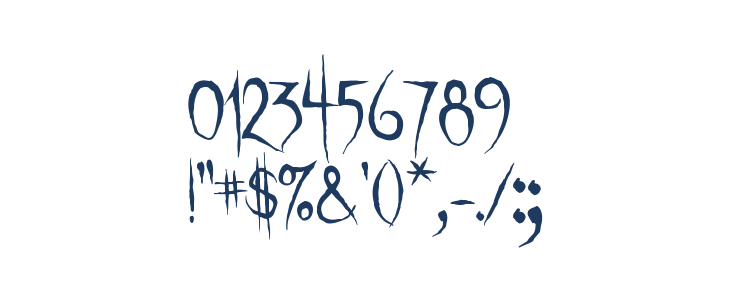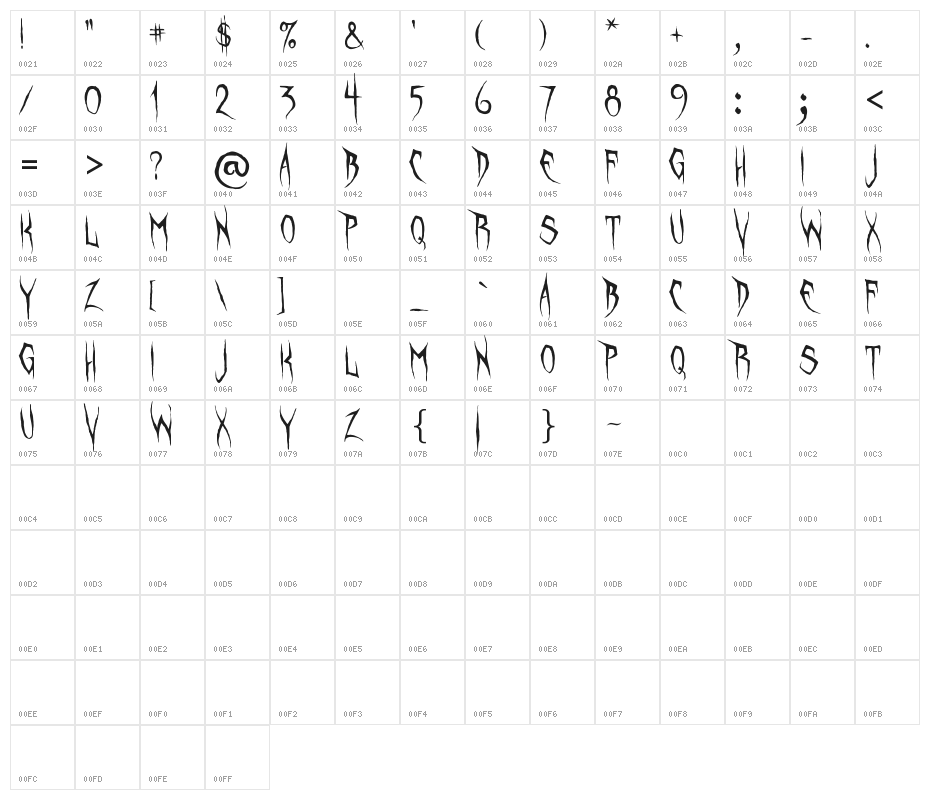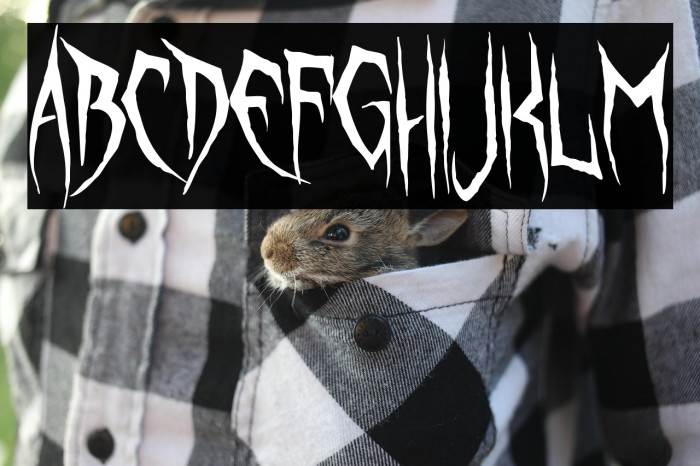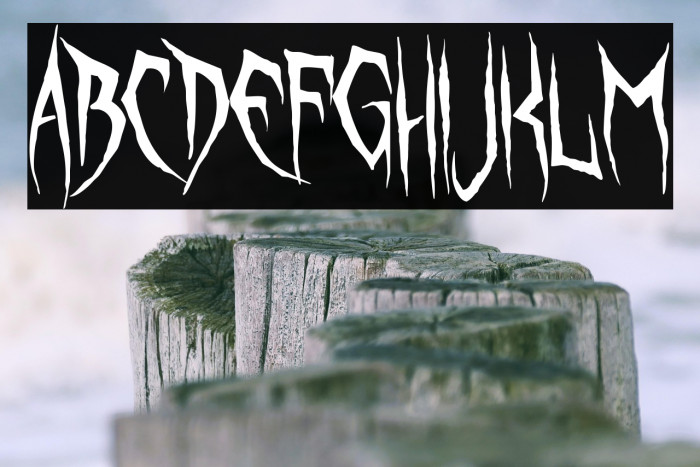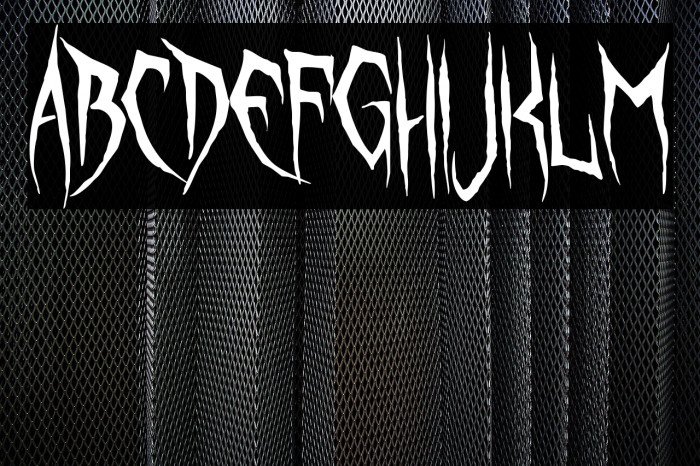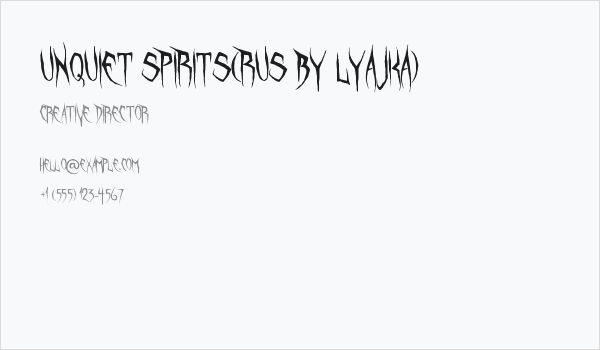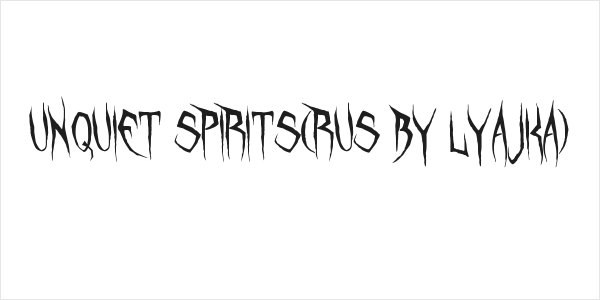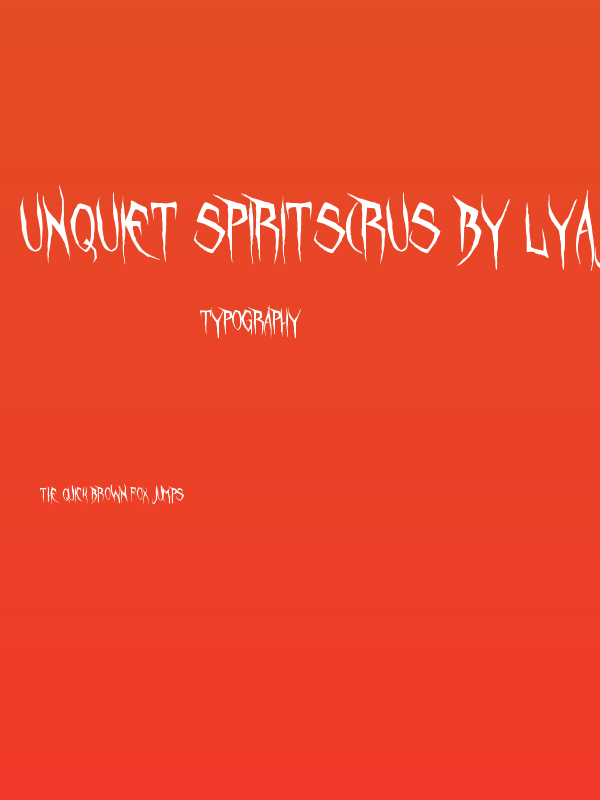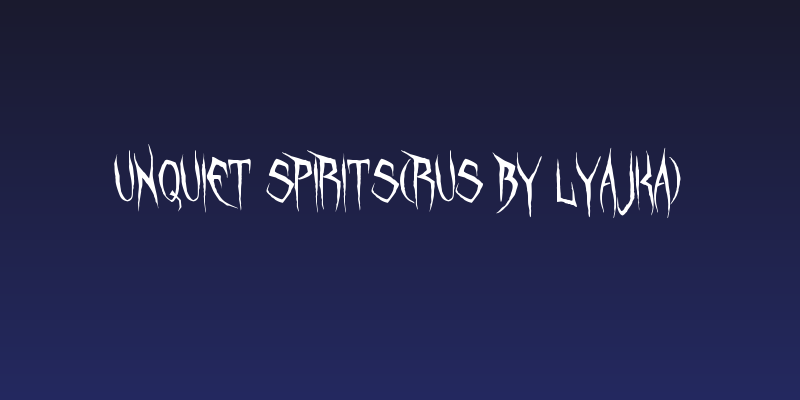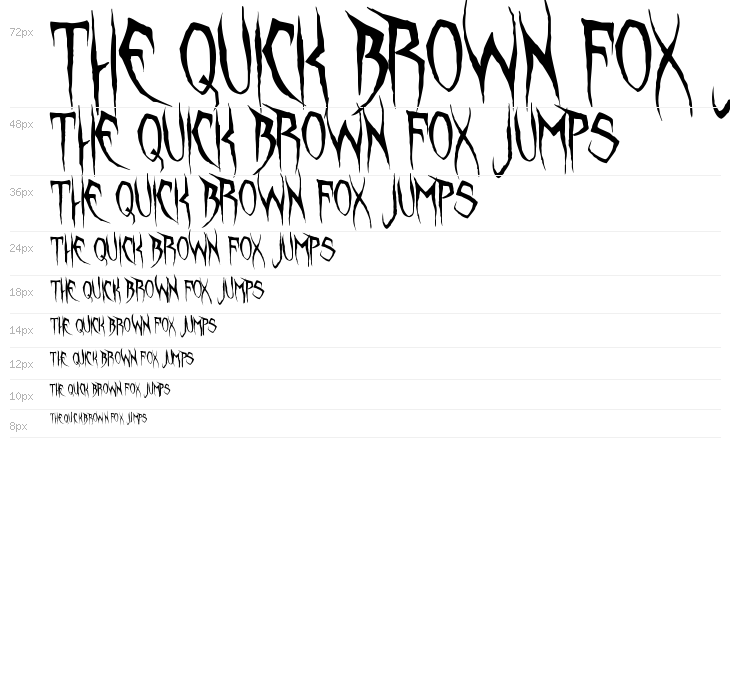
Unquiet Spirits(RUS BY LYAJKA) Font
Unquiet Spirits(RUS BY LYAJKA) Description
This font features a dramatic and eerie style, characterized by sharp, jagged edges and irregular strokes that evoke a sense of mystery and unease. The letters are elongated and pointed, giving them a ghostly appearance. The numbers and special characters maintain this unsettling aesthetic, with each character appearing as if it has been scratched or carved. The overall effect is both captivating and unsettling, making it ideal for projects that require a haunting or supernatural theme. The font's unique style is perfect for creating an atmosphere of suspense and intrigue.
| Proposed Projects | Ideal for horror movie posters, Halloween event flyers, mystery novel covers, and escape room branding. |